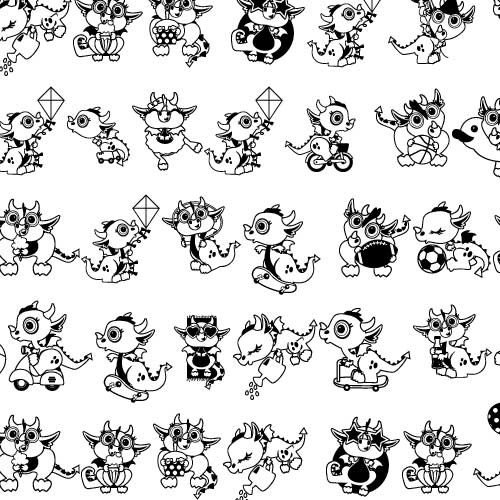
DB Little Dragons - Play - DB
This adorable doodlebat font features 26 little dragons read to play. Perfect for cards, crafts, planner stickers, scrap book pages, parties, decor and more!